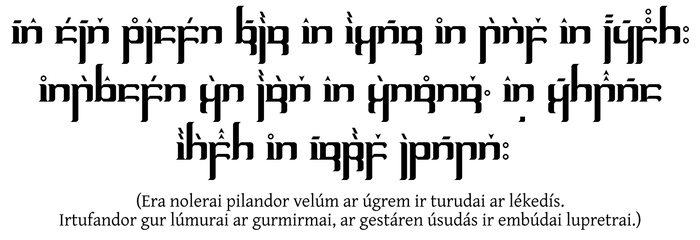
• This font was created for use of the Melronian script for my conlang of the same name. Most of the keys used to type with this script correspond to the letters, except for the following mapping:
Lowercase x: vowel carrier, lowercase y and z: "ai" vowel tehta
Type the letters a, e, i, o, u, y for vowel tehtar above wide characters. Type the letters c, h, j, q, w, z (respectively, of course) for vowel tehtar above narrow characters, i.e the letter L and the vowel carrier. Typing the uppercase letters for these vowels (excluding y and z) produce doubled tehtar for long vowels.
I have not yet added glyphs for the angle-shaped quotations marks, mainly because I thought they were hard to make.
Sample featuring Article 1 of the Universal Declaration of Human Rights in Melronian.